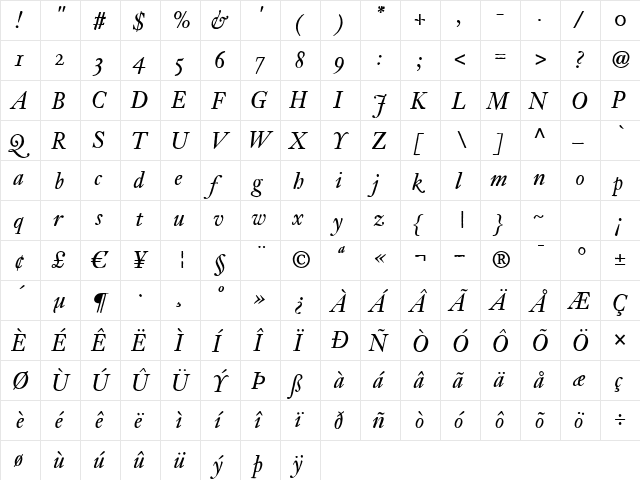
ArchetypeItalic Regular Font Preview
ArchetypeItalic Regular
ArchetypeItalic Regular Font Details
Design Context for ArchetypeItalic Typeface
ArchetypeItalic offers clean, dependable letterforms without strong stylistic allegiance, making it a practical choice for designers who need flexibility. The slanted form adds forward momentum and visual energy.
Pro Tip: Use ArchetypeItalic for emphasis, pull quotes, and subheadings where its slanted energy can add rhythm to the layout.